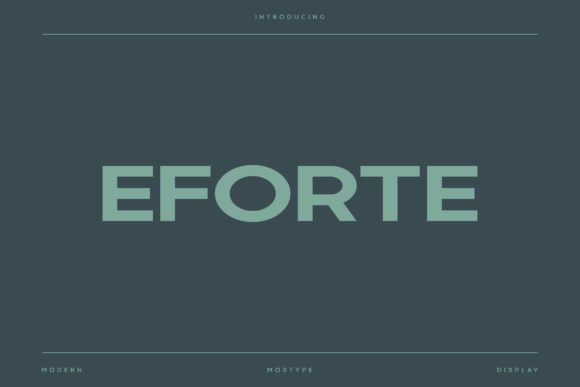
Eforte Font: The Ultimate Sans Serif Typeface for Modern Design
In the world of typography, a font can make or break a design project. With the ever-evolving landscape of digital media, designers and crafters are constantly on the lookout for typefaces that can adapt to various applications. Introducing Eforte Font, a sans serif new generation typeface designed to revolutionize the way you approach corporate and creative projects.
The Birth of Eforte
Eforte is more than just a font – it’s a long-term project that has been crafted with precision and dedication. The creators of Eforte have poured their hearts and souls into designing a typeface that can effortlessly tackle a wide range of tasks, from corporate branding to creative endeavors. Whether you’re working on a logo, title, headline, poster, screen, display, digital ads, or any other project, Eforte is the perfect companion.
Key Features of Eforte Font
So, what sets Eforte apart from other sans serif typefaces? Here are some of its key features:
- Versatility: Eforte is designed to be versatile, making it suitable for a variety of projects, including branding, product design, logos, titles, headlines, posters, screens, displays, digital ads, and more.
- Clean and Modern Design: Eforte boasts a clean and modern sans serif design, making it perfect for contemporary projects that require a fresh and sleek look.
- High Legibility: The font’s design ensures high legibility, even at small sizes, making it ideal for body text and captions.
- Extensive Character Set: Eforte features an extensive character set, including uppercase and lowercase letters, numbers, punctuation marks, and special characters.
Use Cases for Eforte Font
Eforte’s versatility makes it an excellent choice for a wide range of projects. Here are some use cases where Eforte shines:
- Corporate Branding: Eforte’s clean and modern design makes it perfect for corporate branding, logos, and letterheads.
- Digital Ads: The font’s high legibility and versatility make it an excellent choice for digital ads, including social media graphics, display ads, and email marketing campaigns.
- Posters and Flyers: Eforte’s bold and modern design makes it ideal for posters, flyers, and other print materials.
- Web Design: The font’s clean design and high legibility make it perfect for web design, including website headers, body text, and UI elements.
Why Choose Eforte Font?
With so many typefaces available, why choose Eforte? Here are some compelling reasons:
- Unique Design: Eforte’s unique design sets it apart from other sans serif typefaces, making it an excellent choice for designers looking for something fresh.
- High-Quality: The font is crafted with precision and attention to detail, ensuring high-quality output.
- Long-Term Support: As a long-term project, Eforte will receive regular updates and support, ensuring it stays relevant and effective.
In conclusion, Eforte Font is a game-changer for designers and crafters looking for a versatile, modern, and high-quality sans serif typeface. Its clean design, high legibility, and extensive character set make it perfect for a wide range of projects, from corporate branding to creative endeavors. With Eforte, you can elevate your designs and take your projects to the next level.